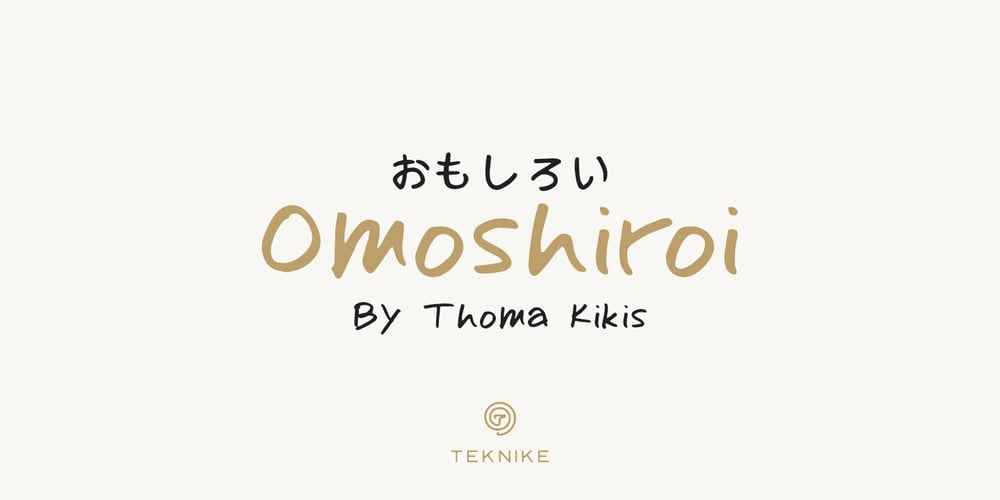
Omoshiroi
Omoshiroi font
Omoshiroi Font Family was designed by Thoma Kikis and published by TEKNIKE. Omoshiroi contains 4 styles and family package options. Omoshiroi is a display monospace handwriting font. The typeface is a distinct hand drawn font using a marker pen. The Omoshiroi name is derived from the Japanese word omoshiroi (おもしろい) meaning “interesting” or “amusing”. Omoshiroi is great for display work, invitations, writing, architecture, posters, labels and headings.